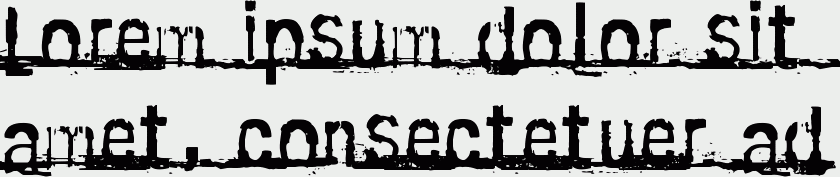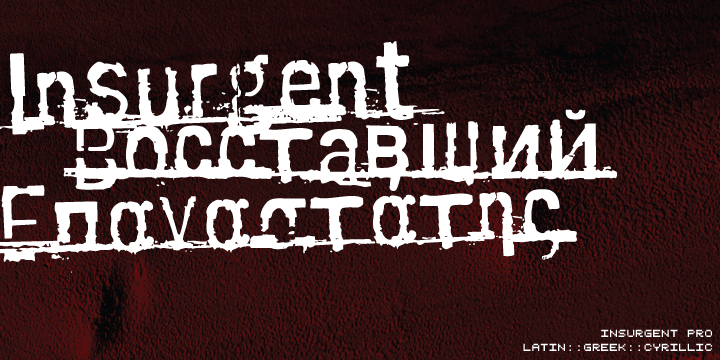
Insurgent Pro
Destroy, destroy. Insurgent was expanded to include extended Latin, extended Cyrillic and Greek alphabets so it will work with most languages in Europe and the Americas.